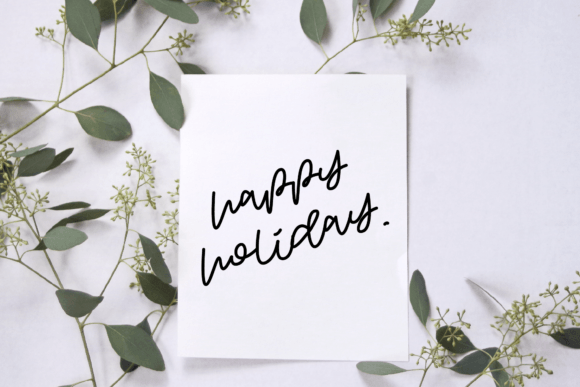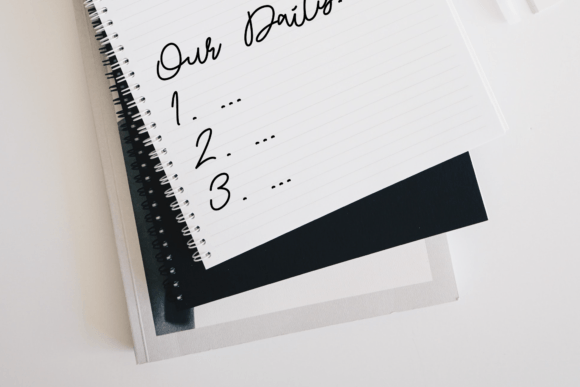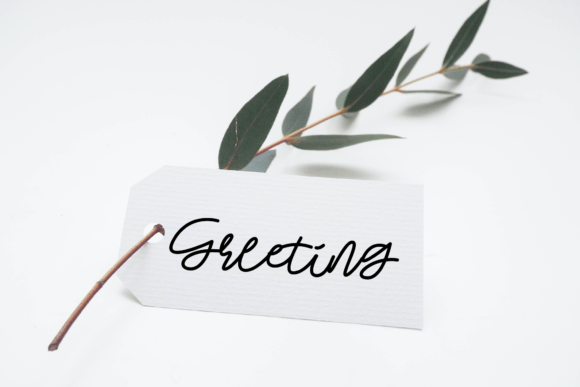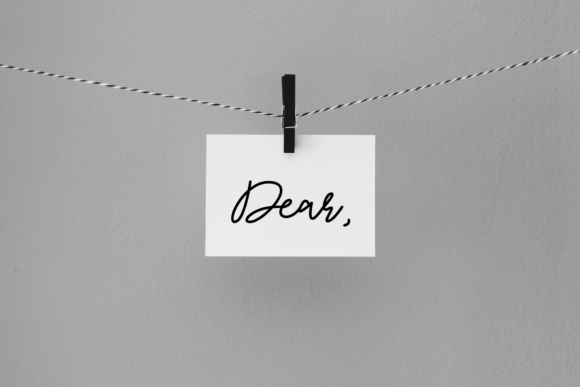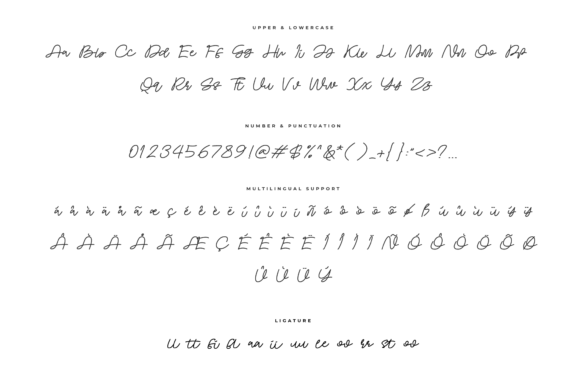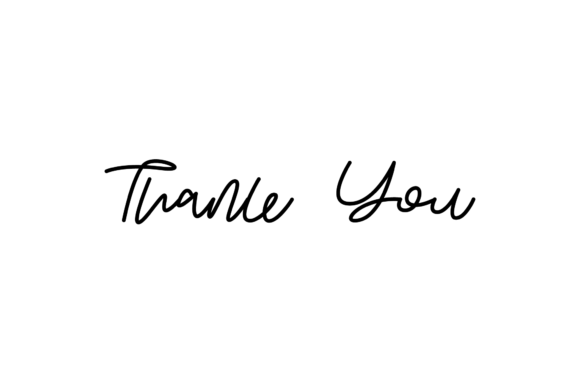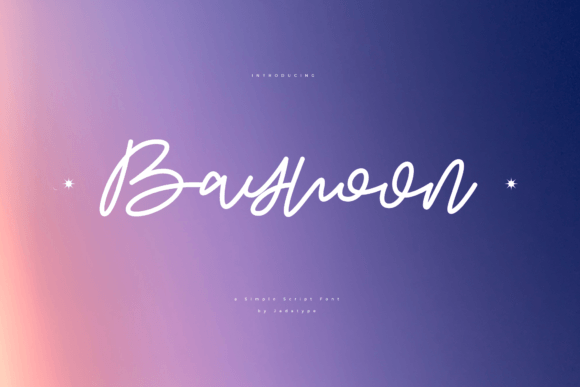
Discover the Fun and Versatile Bayhoon Font: Elevate Your Designs with a Monoline Script
In the world of typography, fonts play a crucial role in conveying messages, expressing emotions, and creating visual identities. For designers, crafters, and creative enthusiasts, finding the right font can make all the difference in bringing their ideas to life. If you’re on the hunt for a unique and versatile font that combines simplicity with a dash of fun, look no further than the Bayhoon Font. In this article, we’ll dive into the world of Bayhoon, exploring its characteristics, uses, and benefits for various design projects.
What is Bayhoon Font?
Bayhoon is a monoline script font that boasts simple lines while still exuding a fun and playful feel. Its monoline design means that the font is constructed from single, unbroken lines, giving it a clean and modern aesthetic. This characteristic makes Bayhoon incredibly versatile, suitable for a wide range of applications, from branding and product design to social media graphics, craft projects, t-shirt designs, greeting cards, and more.
Key Features of Bayhoon Font
• Monoline Script: Bayhoon’s monoline design gives it a sleek and contemporary look that’s perfect for creating modern and stylish designs.
• Simple yet Fun: Despite its simplicity, Bayhoon manages to convey a sense of playfulness, making it ideal for projects that require a touch of whimsy.
• Versatile: Bayhoon’s clean lines and simple structure make it adaptable to various design contexts, from digital to print.
Uses of Bayhoon Font
One of the standout benefits of Bayhoon is its versatility. Here are some of the many ways you can use Bayhoon Font in your designs:
• Branding: Create a memorable brand identity with Bayhoon’s modern and clean lines, perfect for logos, business cards, and letterheads.
• Social Media Graphics: Elevate your social media presence with Bayhoon, using it for posts, stories, and bio text to create a cohesive visual brand.
• Craft Needs: Whether you’re designing for scrapbooking, journaling, or other paper crafts, Bayhoon’s playful feel can add a personal touch to your projects.
• T-Shirt Designs: Bayhoon’s fun and modern aesthetic makes it a great choice for t-shirt designs, adding a stylish and contemporary vibe to your apparel.
• Greeting Cards: Create unique and heartfelt greeting cards for any occasion with Bayhoon’s simple yet expressive lines.
Benefits of Using Bayhoon Font
So, why choose Bayhoon Font for your design projects? Here are a few compelling reasons:
• Easy to Read: Bayhoon’s clear and simple design ensures that your text is easy to read, even at smaller sizes.
• Highly Versatile: Whether you’re working on digital projects or print materials, Bayhoon adapts seamlessly to different mediums.
• Time-Saving: With Bayhoon’s ready-to-use design, you can save time on font creation and focus on other aspects of your project.
• Unique Aesthetic: Bayhoon’s distinctive monoline script offers a fresh alternative to more traditional fonts, helping your designs stand out.
In conclusion, Bayhoon Font is a valuable addition to any designer’s or crafter’s toolkit. Its unique blend of simplicity and fun makes it an excellent choice for a wide range of projects, from branding and social media graphics to crafts and apparel. With Bayhoon, you can create visually appealing designs that are both modern and engaging. So, why not give Bayhoon a try and see how it can elevate your designs to the next level?
Whether you’re a seasoned designer or a DIY enthusiast, Bayhoon Font offers a world of creative possibilities. Explore its potential, and you’ll discover why it’s becoming a favorite among creatives looking for a font that’s both stylish and versatile.